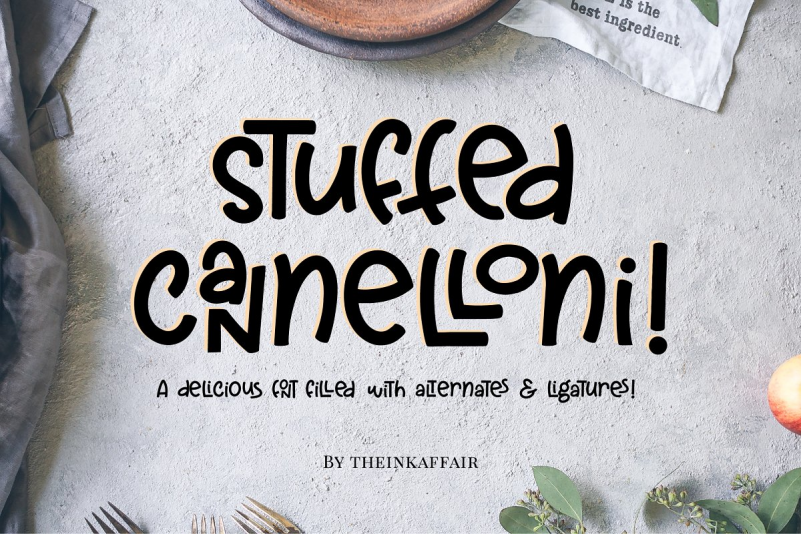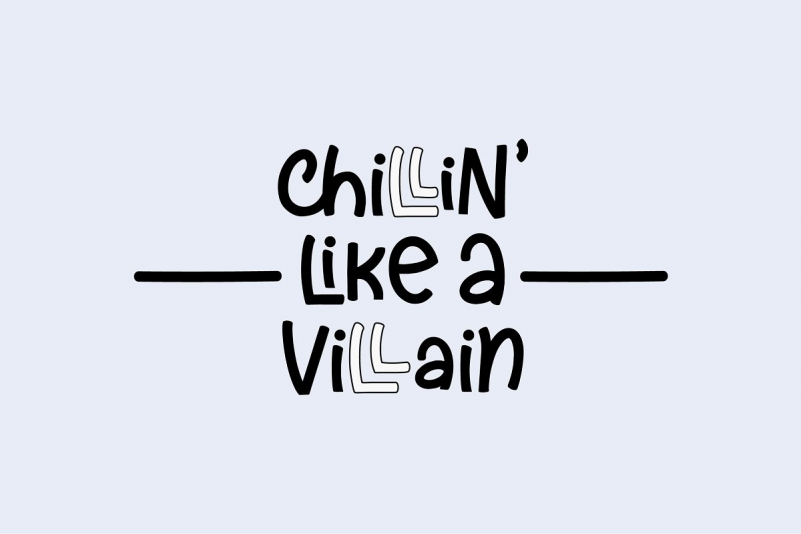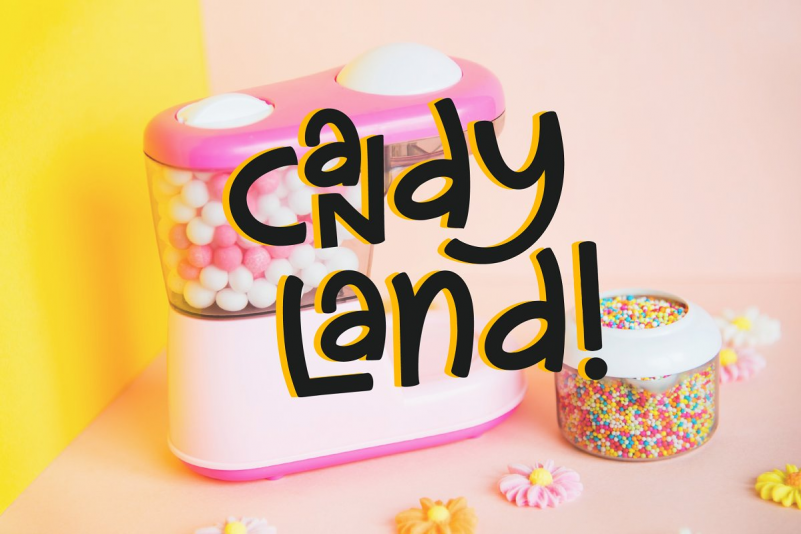
Stuffed Cannelloni Font
Introducing Stuffed Cannelloni, a super fun font filled with alternates and ligatures galore! Grab some stuffed cannelloni and get cooking some deliciously wonderful designs coz it goes perfectly with everything!